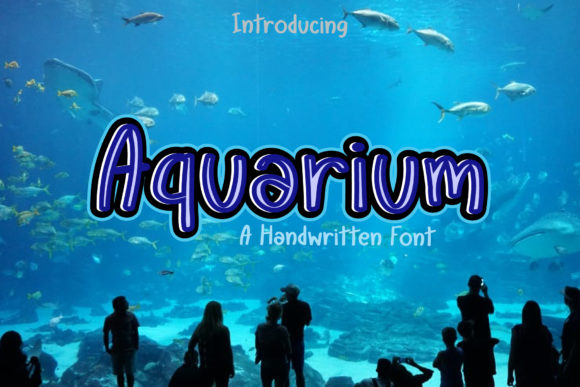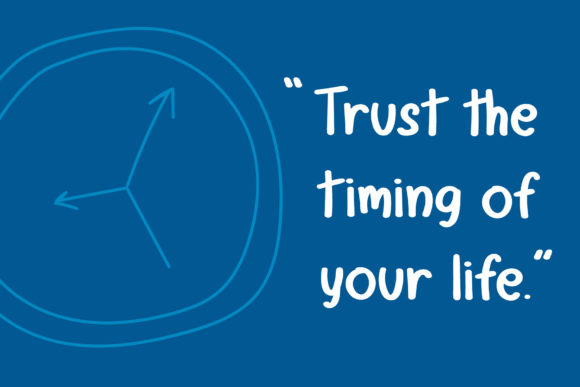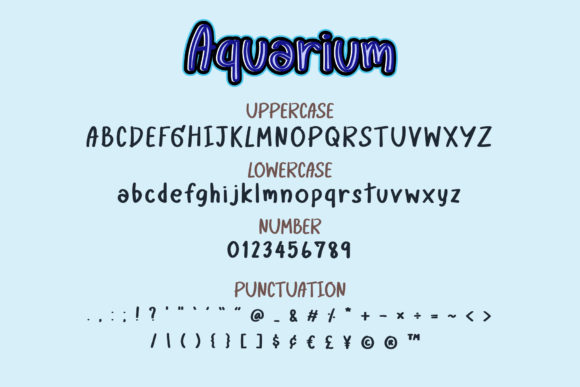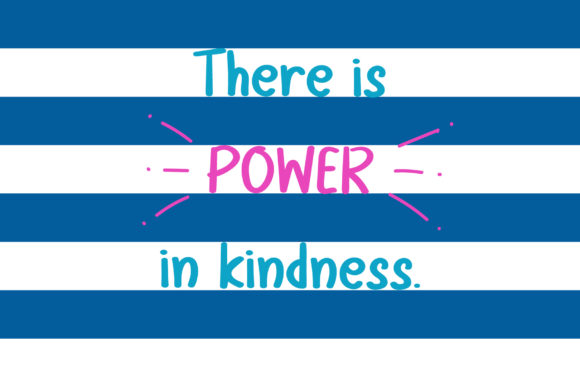
Aquarium Font
About Aquarium Font
Aquarium embodies fun, quirkiness and authenticity. This enchanting handwritten font will turn any creative idea into a true standout.